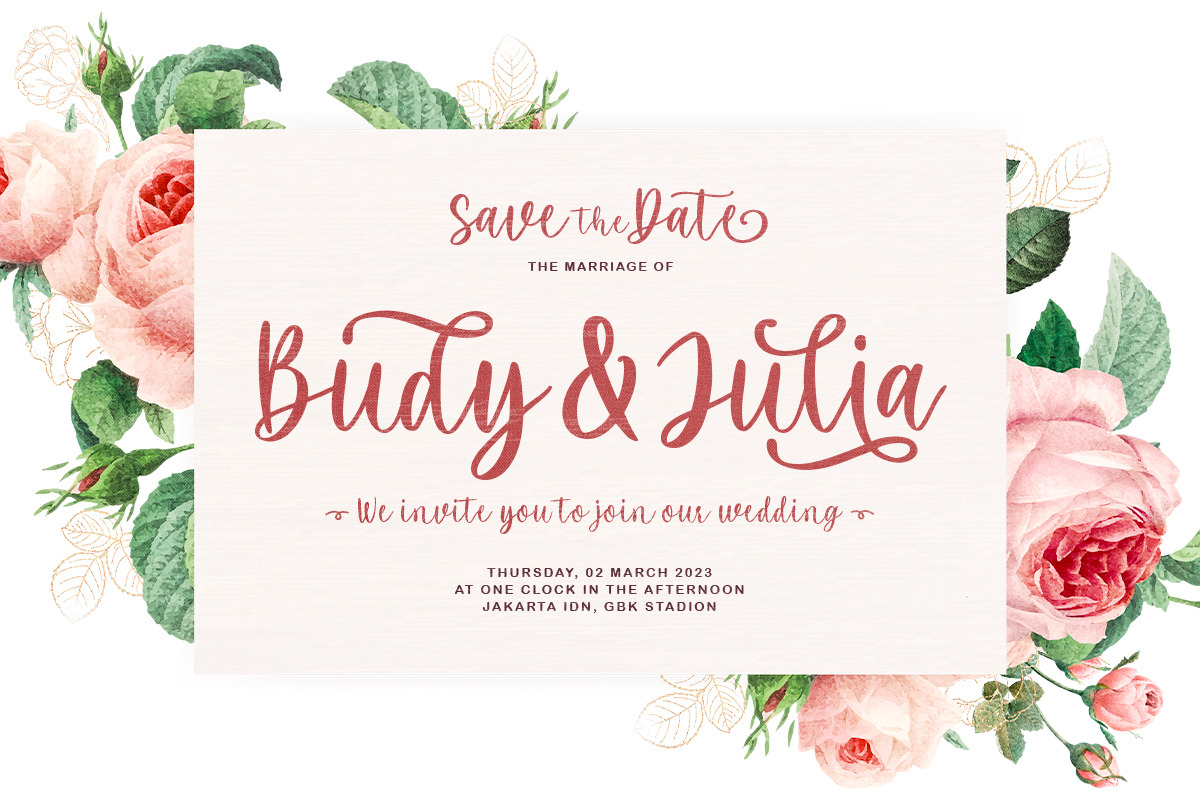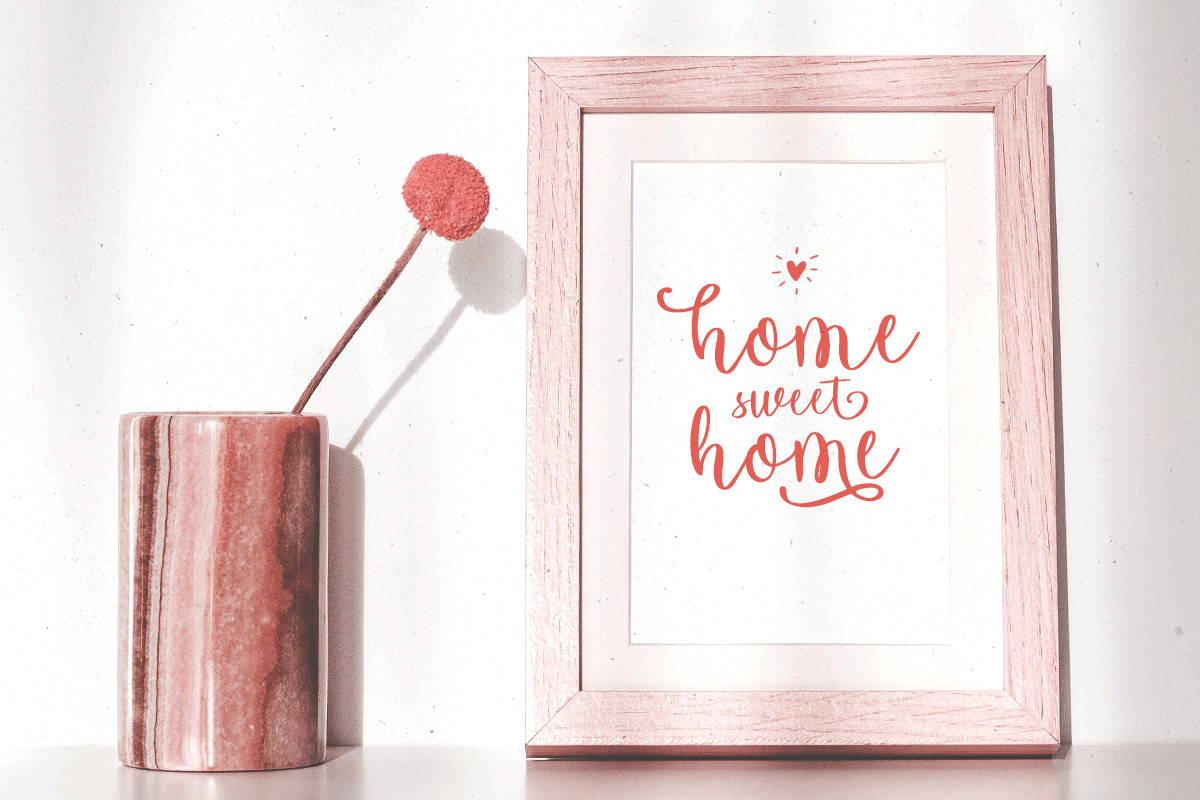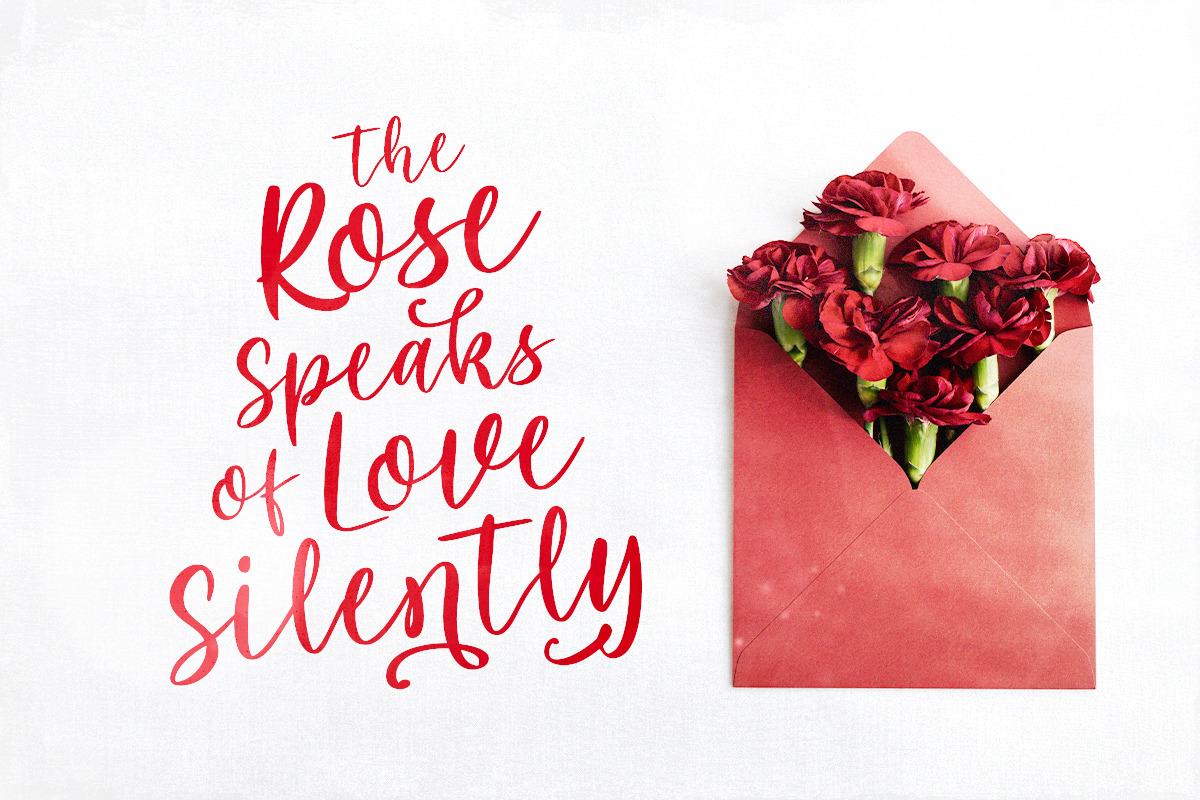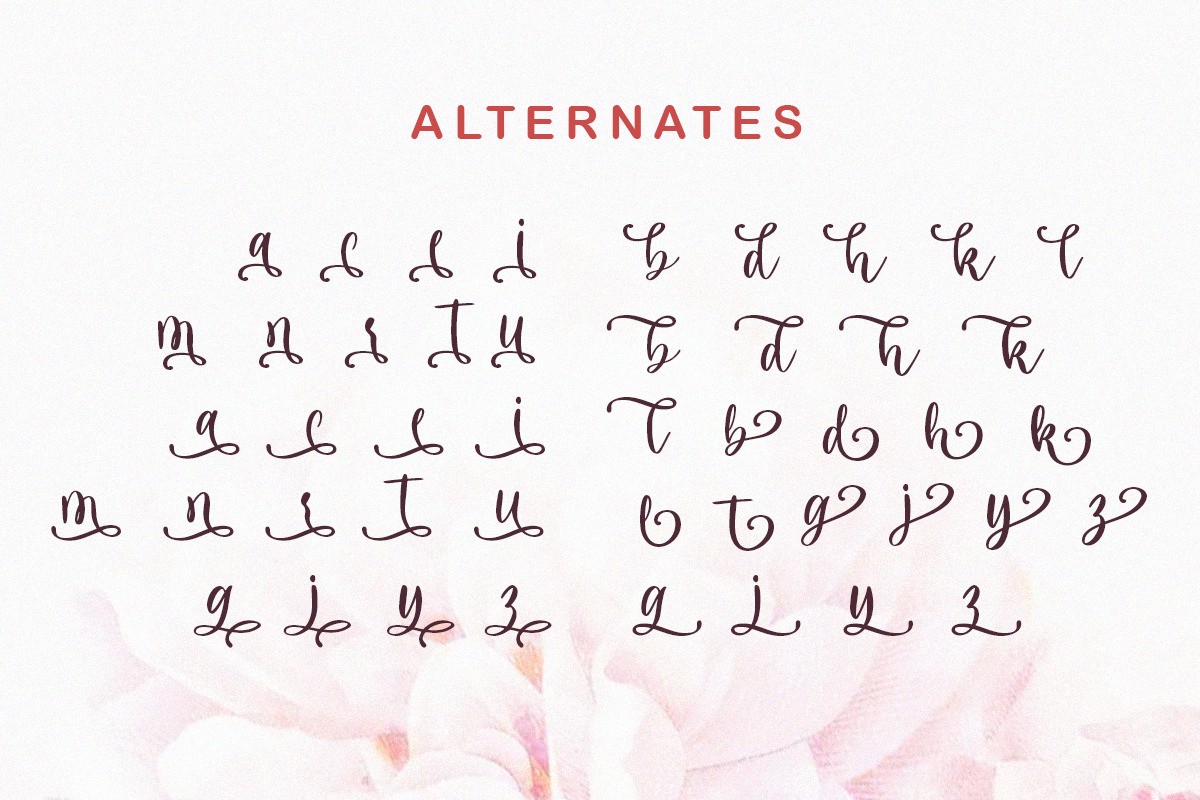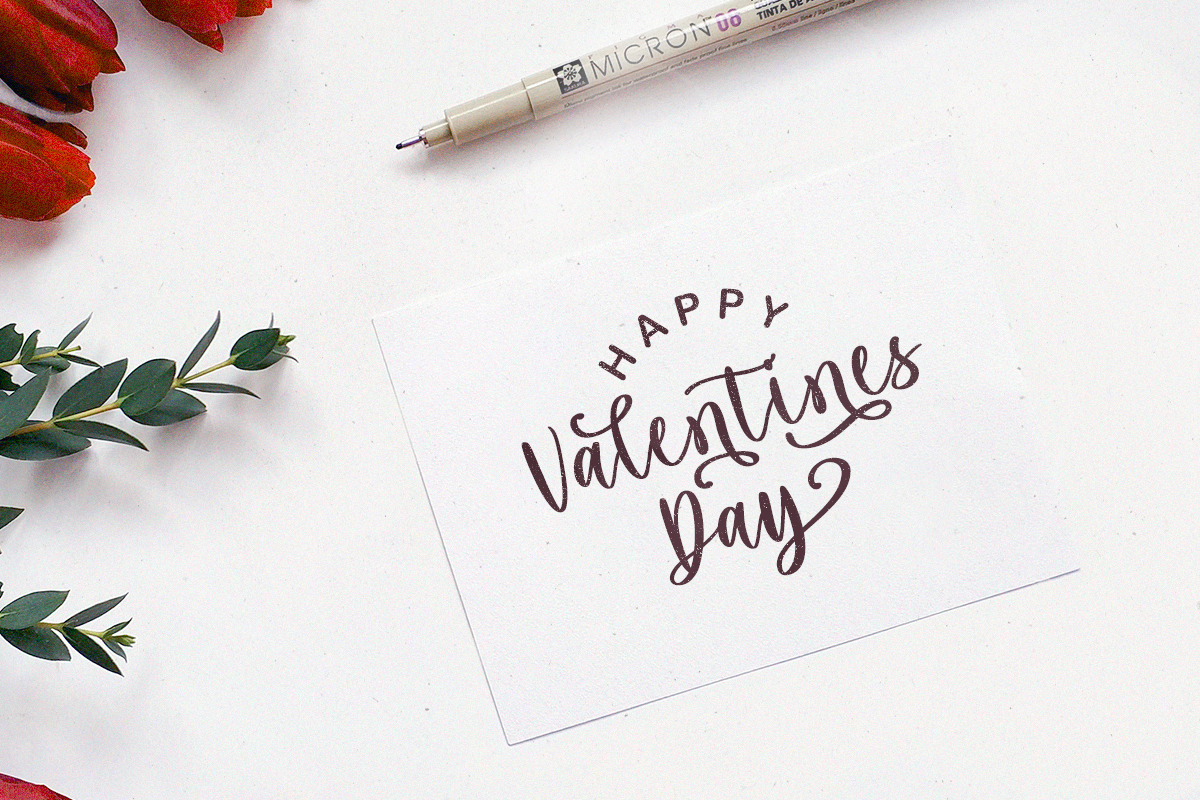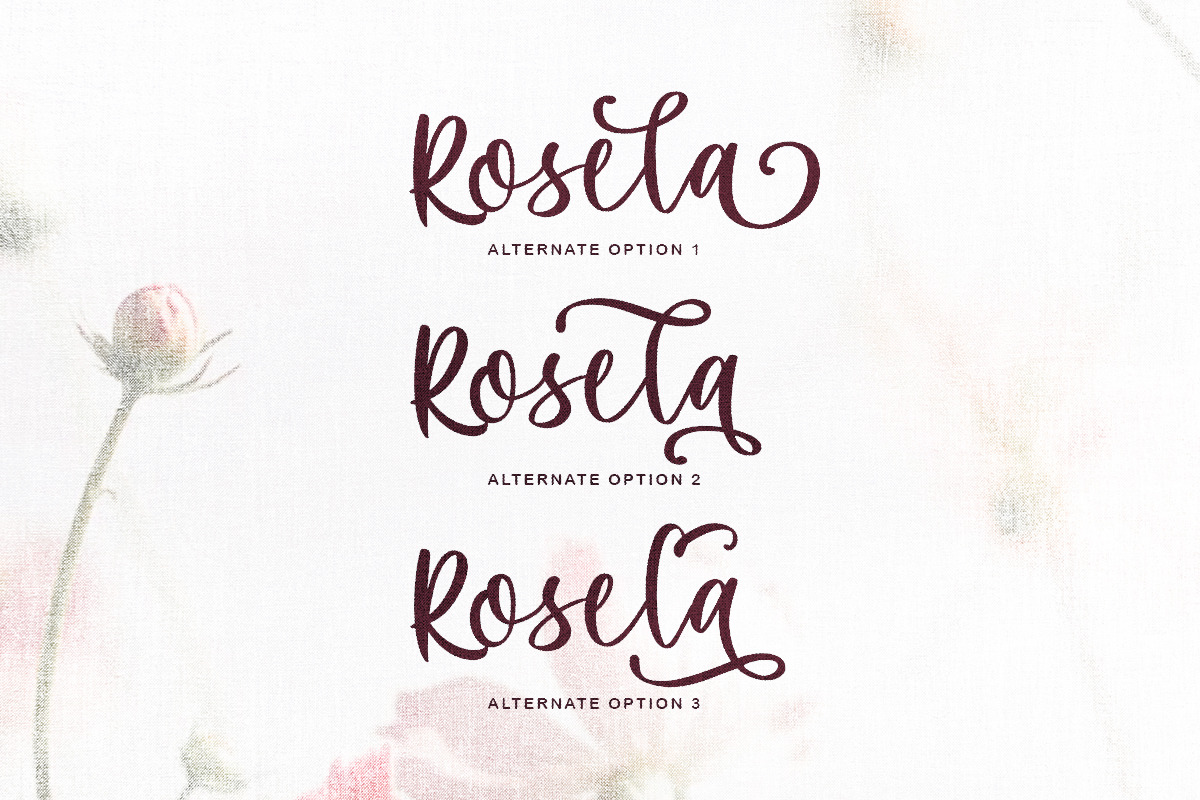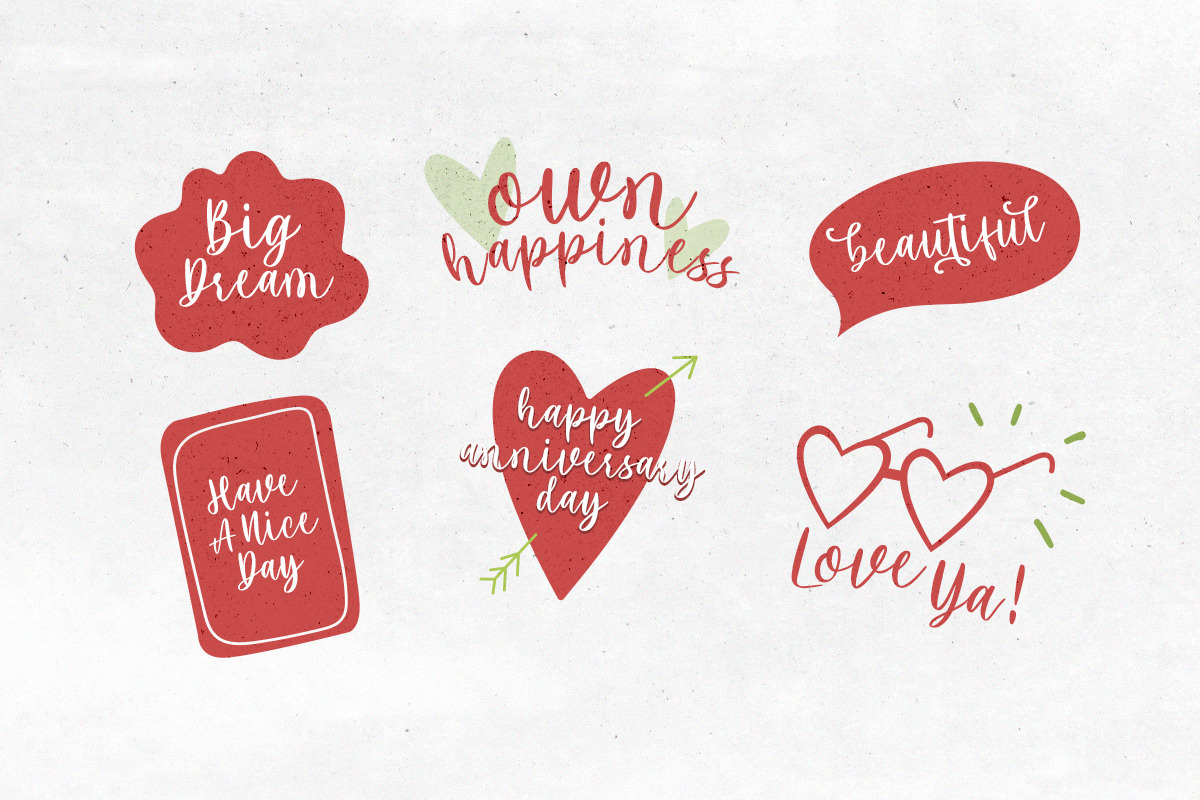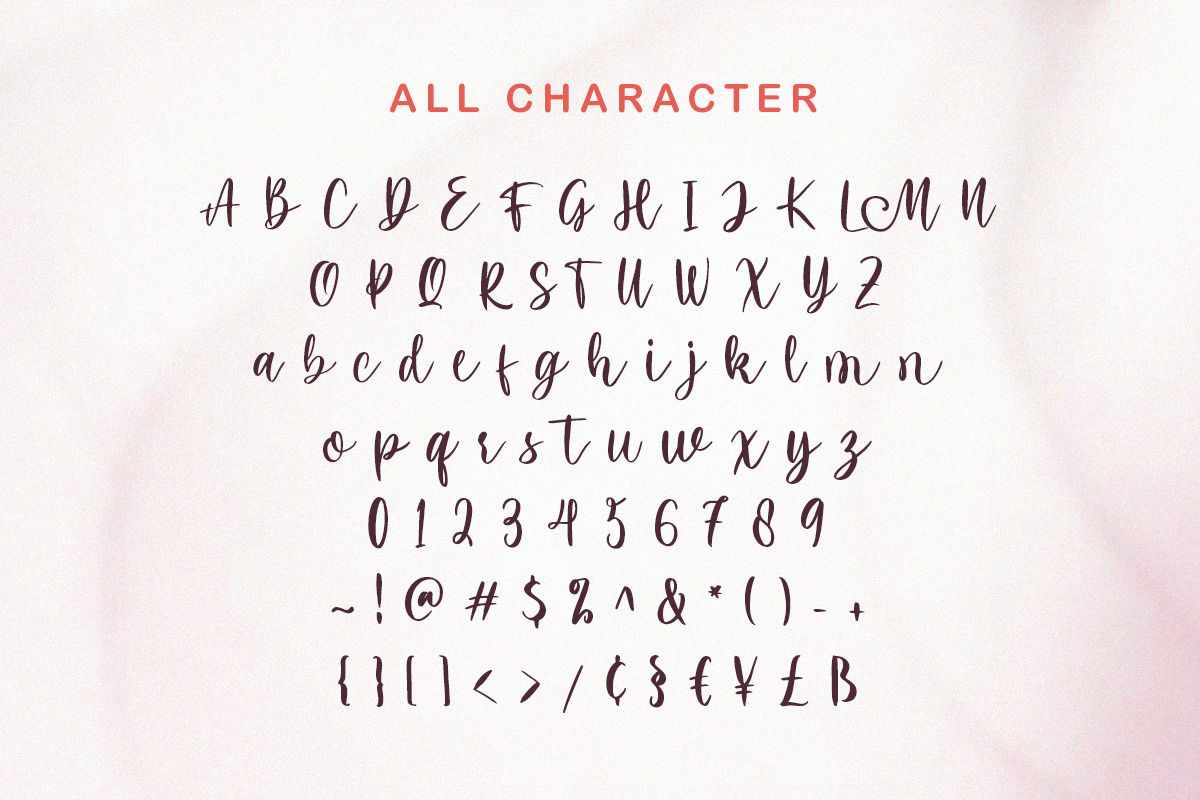
Maria Heart - Romantic Script
Maria Heart is a modern script with lovely look that can make your design more sweet and romantic. With unique and lovely alternates, this font can make your project looks handcrafted and full of love. You can use Maria Heart font for branding, logo, wedding invitation, magazine, website, book, and more! Maria Heart also support Multi Language.